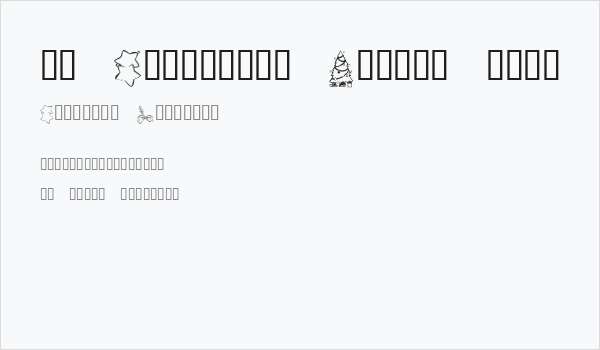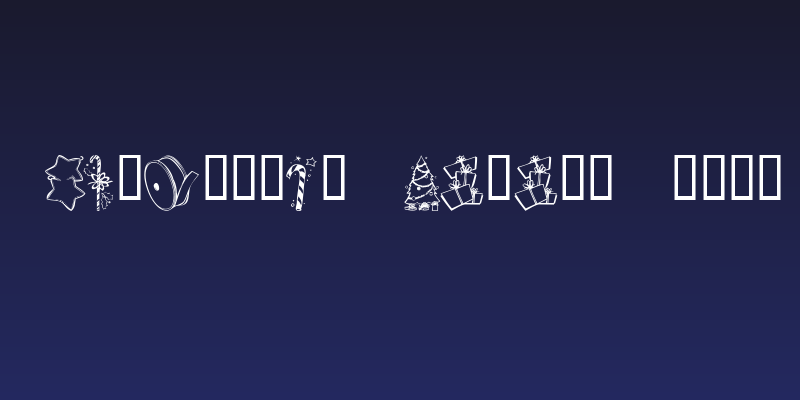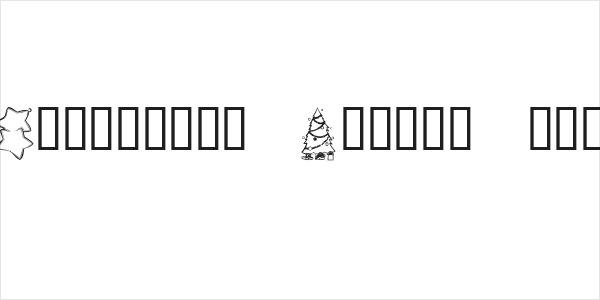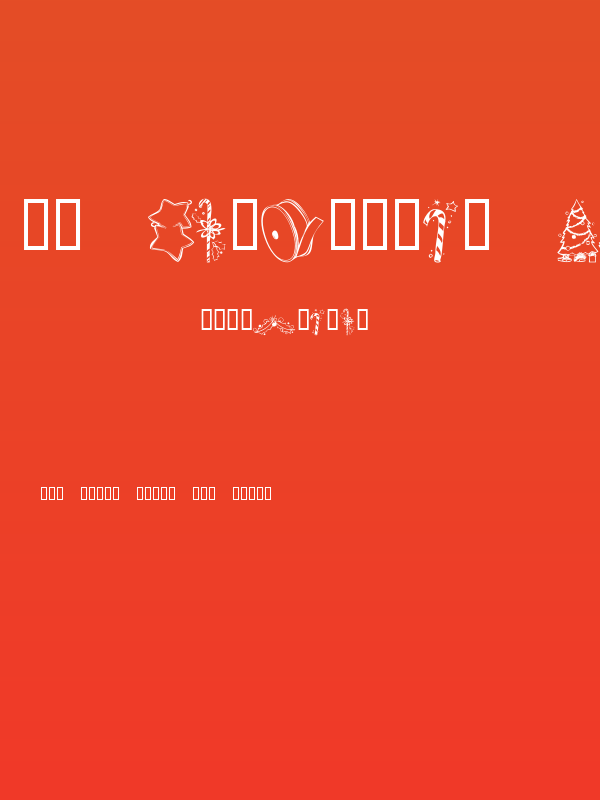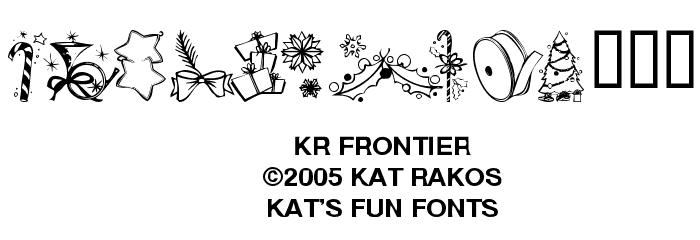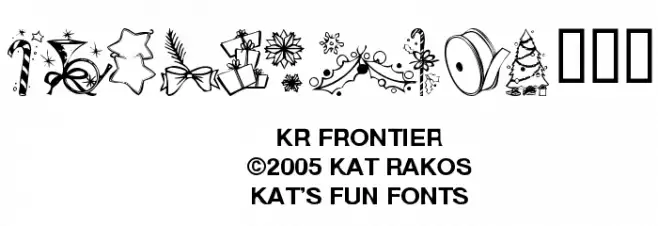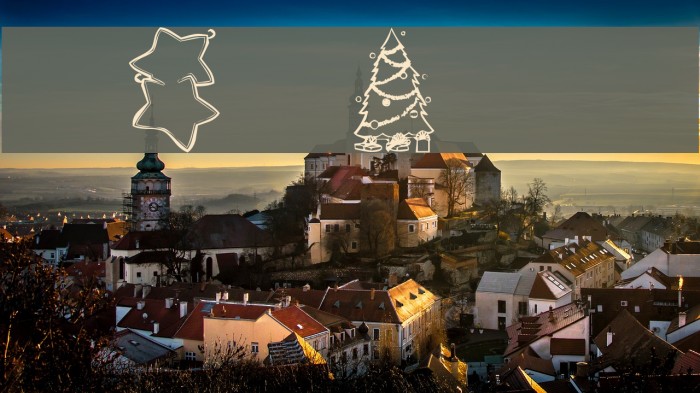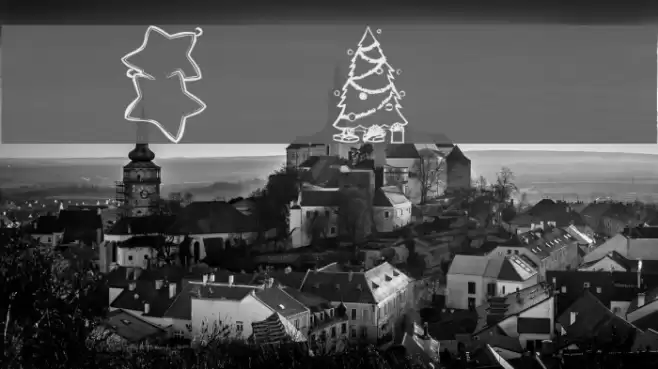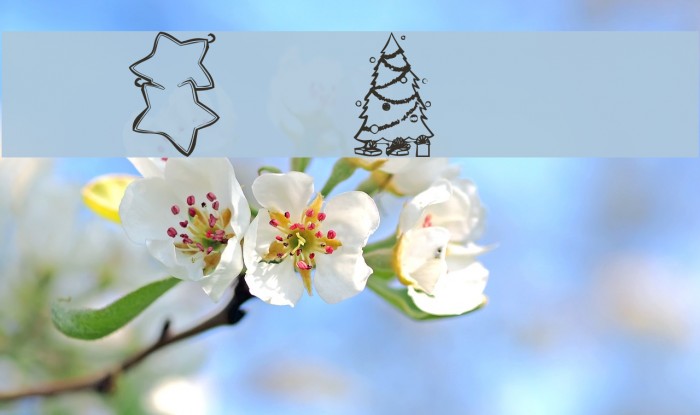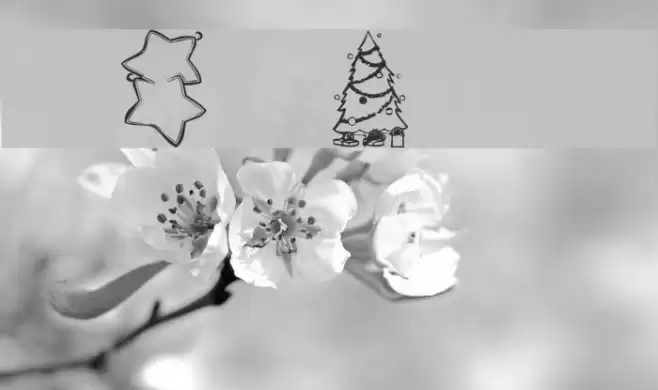
KR Christmas Jewels 2005 5 Font
KR Christmas Jewels 2005 5 Description
This is a decorative font featuring a variety of Christmas-themed illustrations. Each character is represented by a unique holiday symbol, such as candy canes, stars, bells, ribbons, and Christmas trees. The designs are intricate and playful, capturing the festive spirit of the holiday season. The font is ideal for adding a whimsical touch to holiday cards, invitations, and festive decorations. The characters are well-defined, with clear outlines and detailed embellishments, making them visually appealing and suitable for various creative projects.